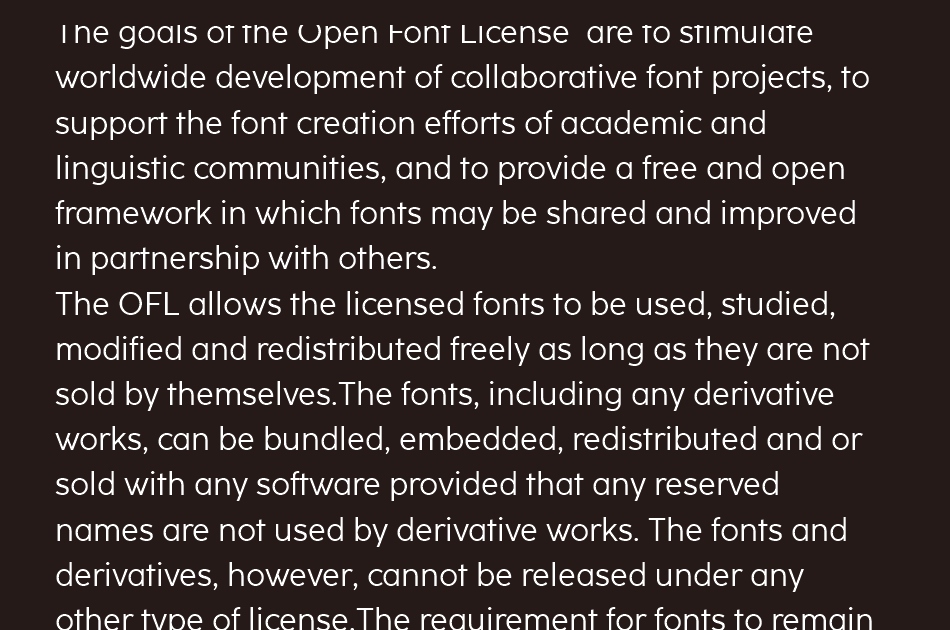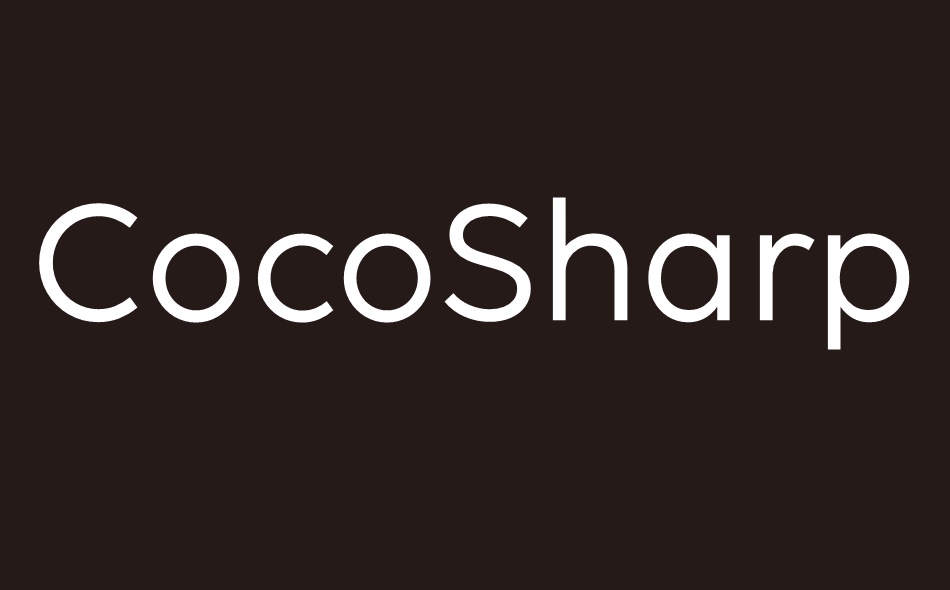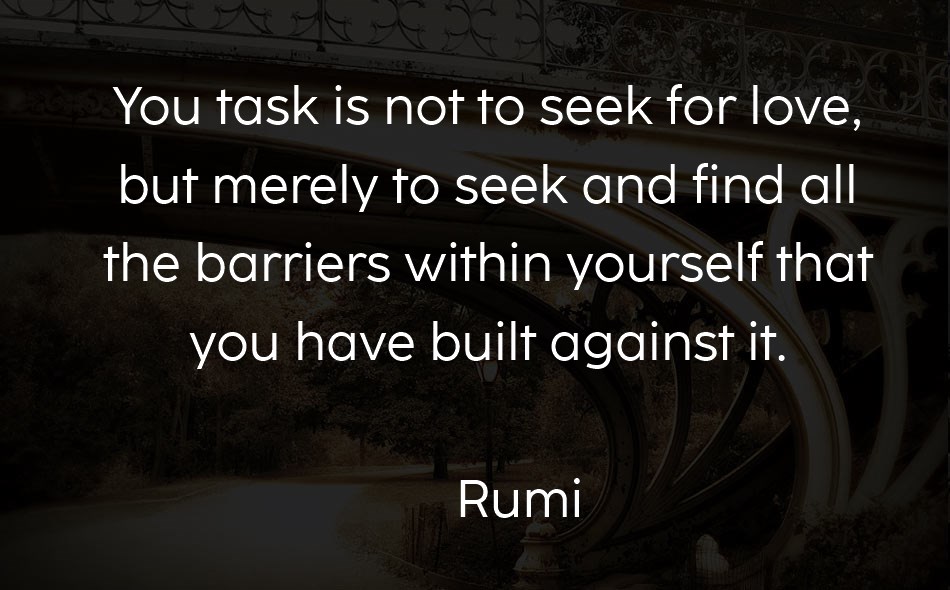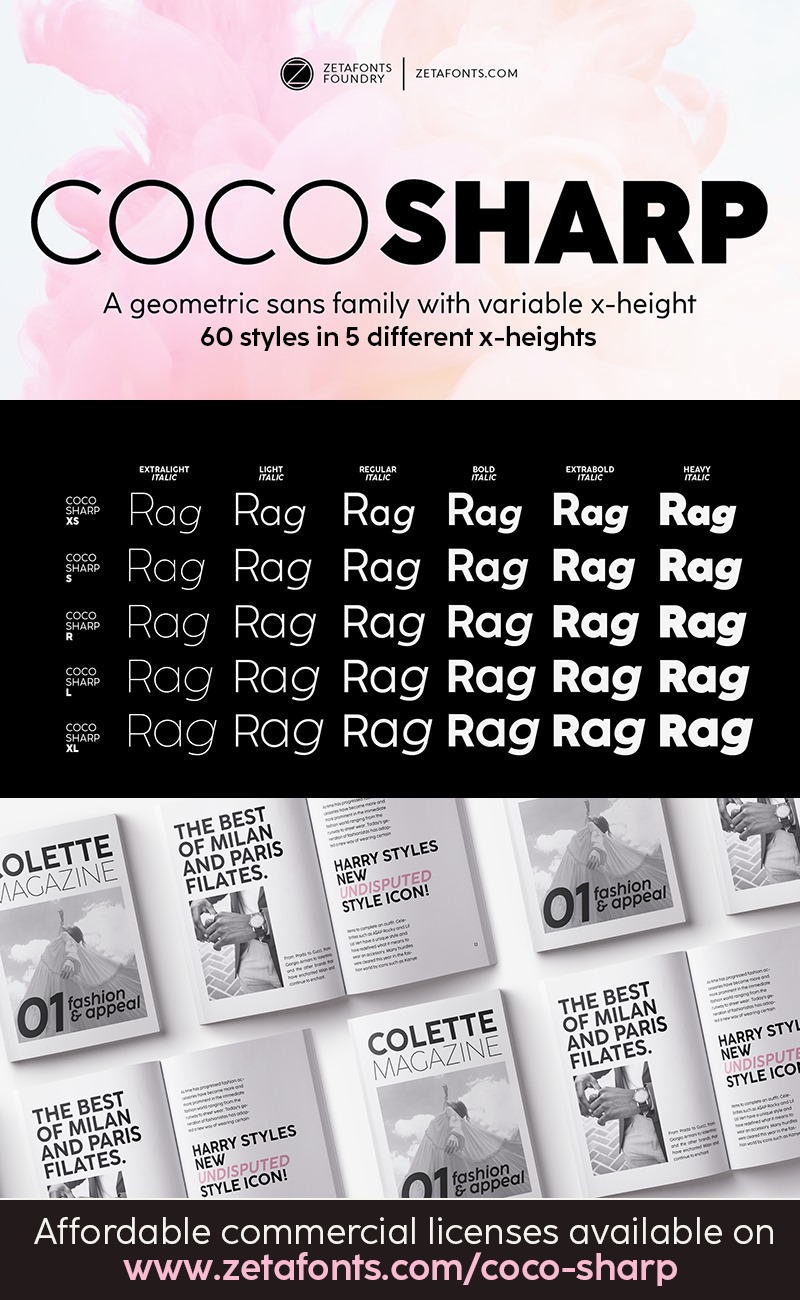
Coco Sharp font
Coco Sharp is the newest evolution of the Coco typographic project, developed since 2013 by Cosimo Lorenzo Pancini for the foundry Zetafonts, with the help of Francesco Canovaro and Andrea Tartarelli. Influenced by vernacular grotesques sign-painting and modernist ideals, and inspired by the classy aesthetic of fashion icon Coco Chanel, Coco is drawn on a classic geometric sans skeleton but applies humanist proportions and visual corrections to key letters with the aim to create a warmer, subtly vintage texture on the page and on the screen.
Coco Sharp drops the rounded corners of previous incarnations (Coco Gothic and Cocogoose) to pair the typeface display and logo capability with a sharper definition for text use. As in the other Coco families, a wide range of alternate letterforms allows to express different historical moods, including elegant, quirky and unexpected designs able to transform a simple word in a memorable wordmark.